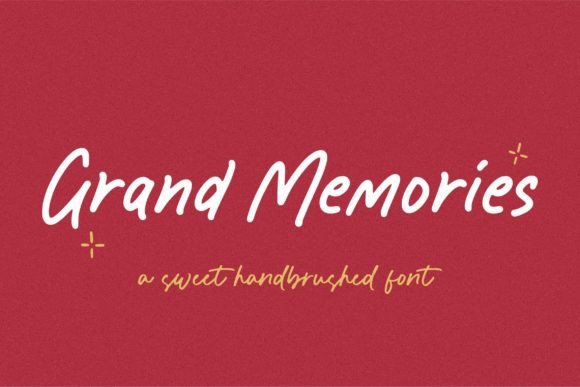
Presenting Grand Memories Font - A Masterpiece of Calligraphic Elegance
In a world saturated with digital communication, a handwritten note, a personal touch, can cut through the noise and create a lasting impression. Grand Memories Font, a creation of Balpirick, is your key to unlocking the power of heartfelt expression in your design endeavors.
Visualize the impact of your cover letter, meticulously crafted with Grand Memories Font. Its elegant strokes and graceful curves will dance across the page, commanding attention and leaving a trail of intrigue. Envision the allure of your invitations, adorned with the charm and warmth of this exquisite script.
With Grand Memories Font, you'll elevate your designs to new heights of desirability. Its versatility extends far beyond mere words - unleash your creativity and explore logos, branding, and countless other projects. Its modern, handwritten style will infuse your creations with a touch of authenticity and human connection.
Whether you're an ambitious entrepreneur seeking to leave a mark or an artist striving to share your unique perspective, Grand Memories Font is your trusted ally. It's meticulously crafted to reflect the beauty of human touch, the essence of individuality.
Elevate your designs, enchant your audience, and create a lasting legacy of heartfelt expression with Grand Memories Font - the ultimate embodiment of calligraphic artistry.